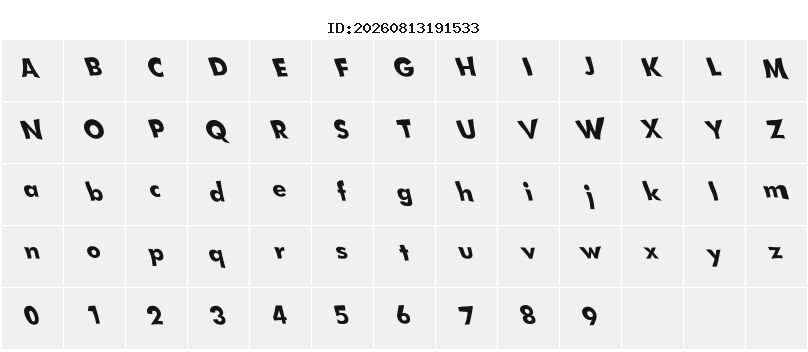
sparrow (sRB).ttf is a modern, elegant sans-serif font designed for ultimate readability and visual harmony. Perfect for branding, headlines, web design, and print materials.